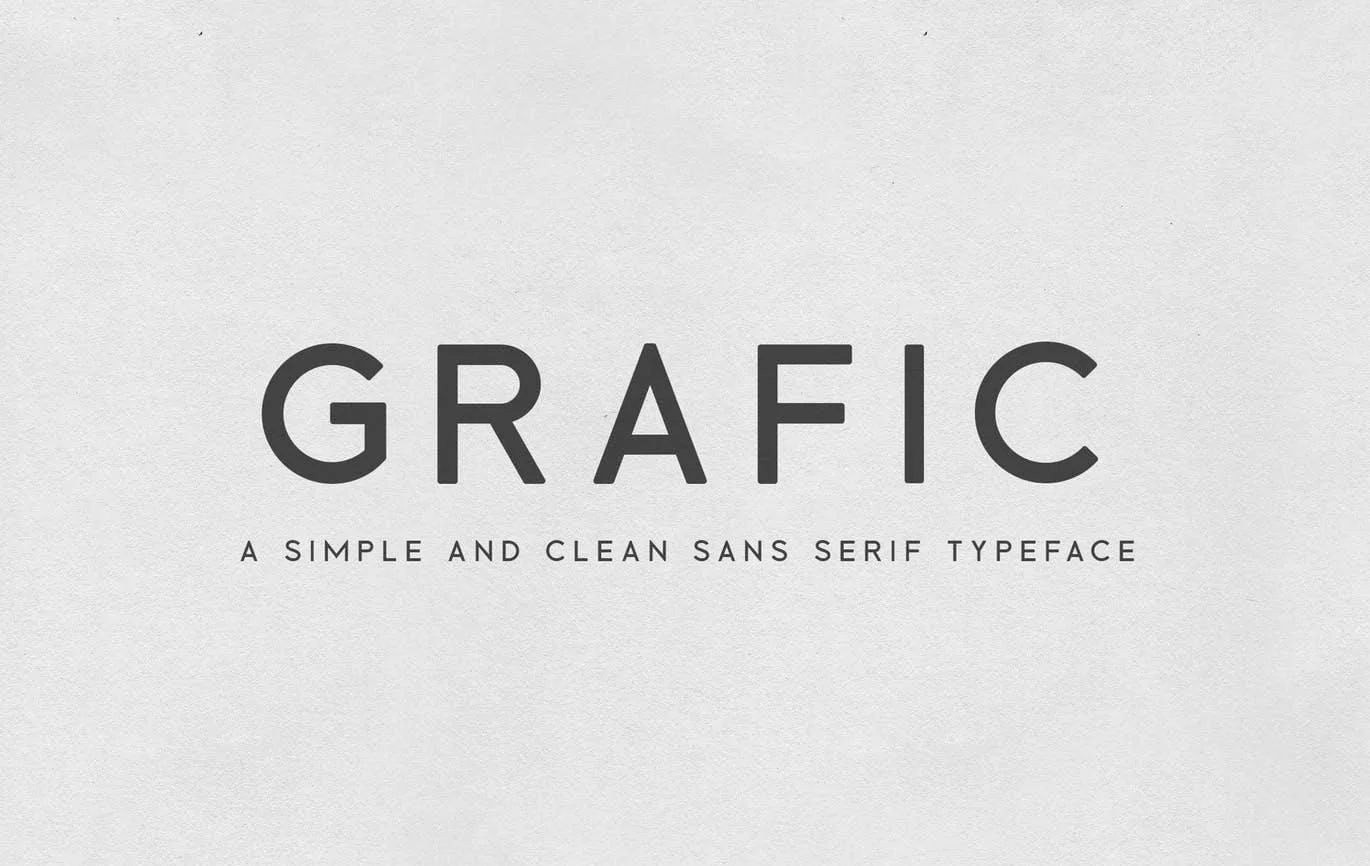
Please note that Grafic Font must be purchased for commercial use. You are welcome to download and test this font for personal and non-commercial projects at no cost. This simple, clean, and modern sans serif typeface is perfectly suited for a wide range of striking design applications, including poster design, impactful logos, bold album art, corporate branding, clean website navigation, and any creative project that requires a high-impact, minimalist, and versatile visual solution built on fundamental geometric principles.
The reason Grafic Font is genuinely exciting is its dedication to simplicity, which results in a bold yet highly functional aesthetic. Inspired by fundamental shapes, Grafic Font intentionally creates visual contrast and is extremely useful for highlighting essential information. Its clean lines and modern geometry ensure superb legibility in large display sizes, making it an excellent choice for designers who aim for an uncluttered, high-end feel where typography must speak clearly and confidently without distraction.
The Grafic Font family, designed for display use, typically concentrates on core styles necessary for generating impact, frequently including a strong Regular weight and sometimes a heavier Bold variant for maximum presence. In addition, its stylistic precision often makes it a reliable partner for other fonts in layered compositions. For a clean, versatile, and high-impact font solution, secure your Grafic Font Free Download today.